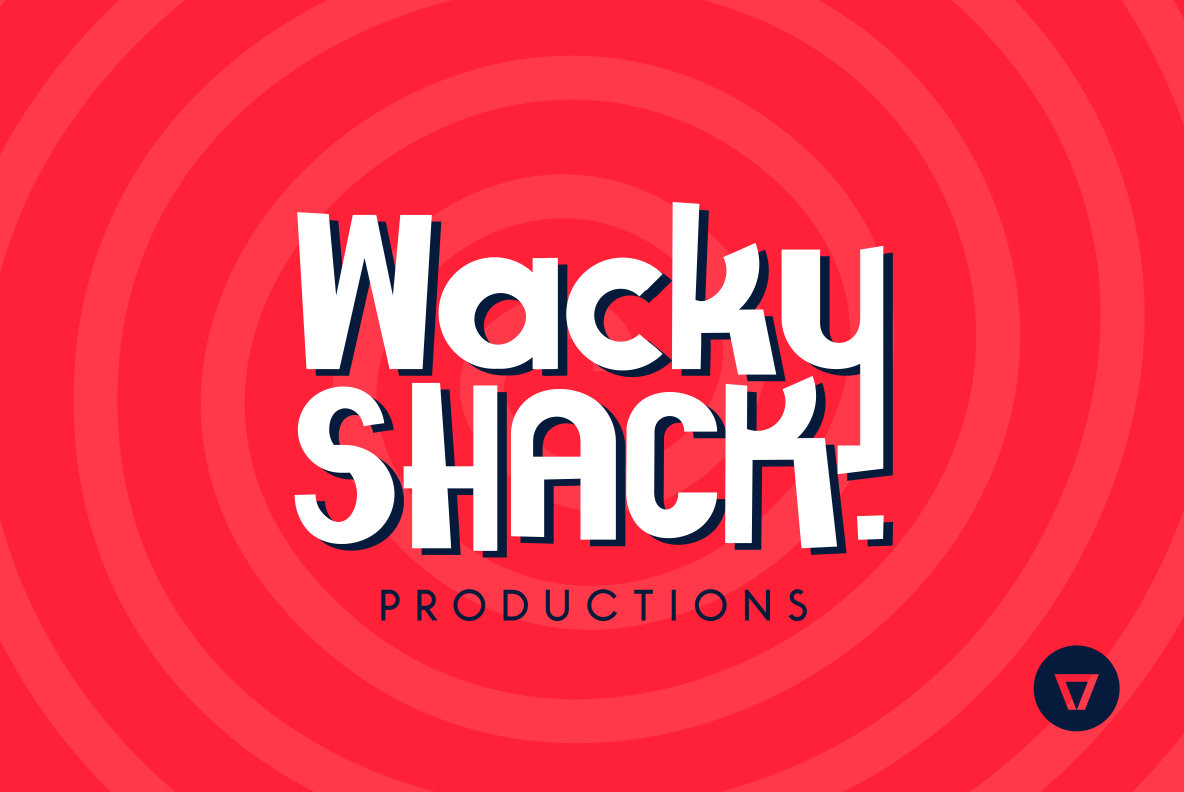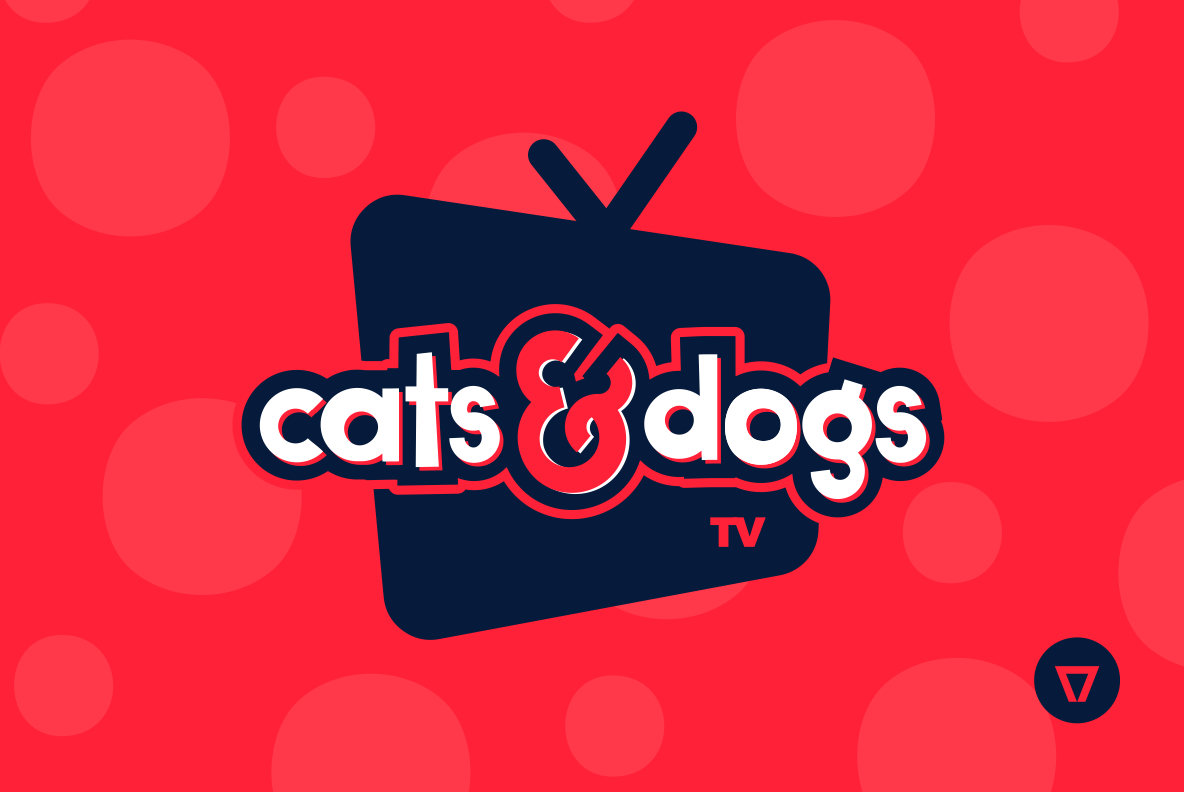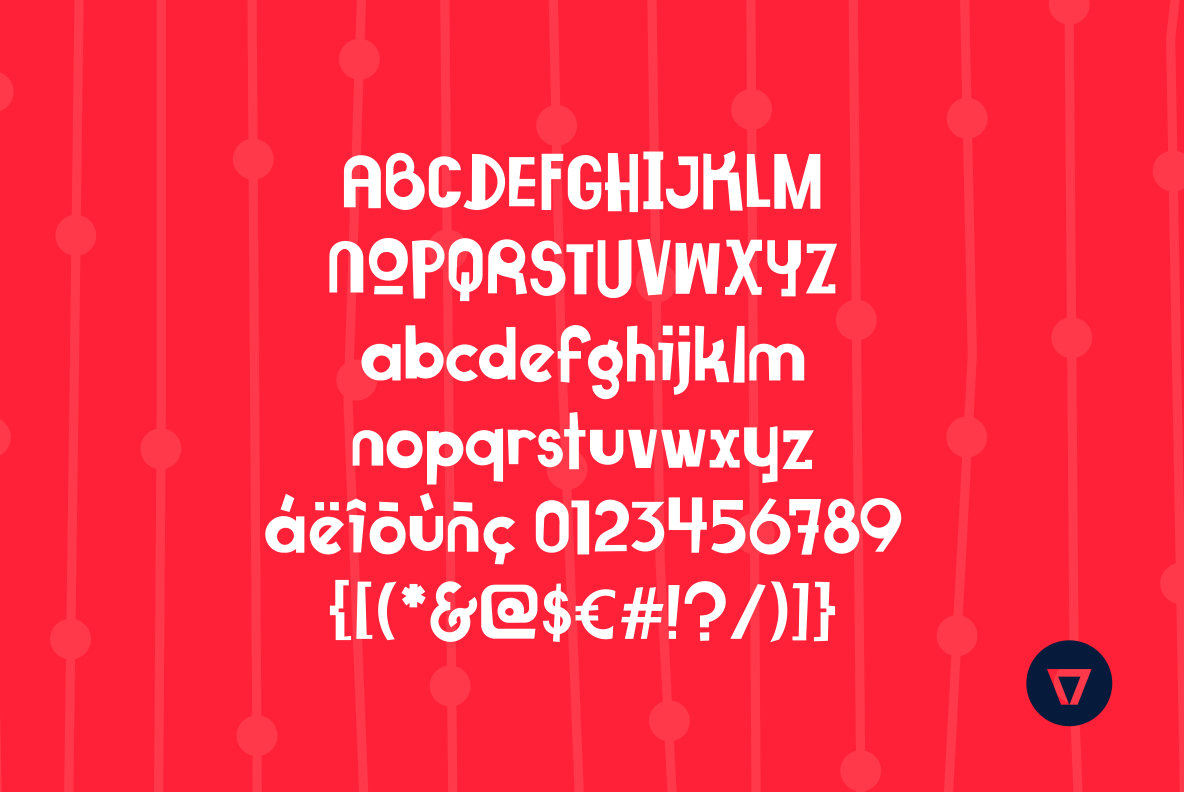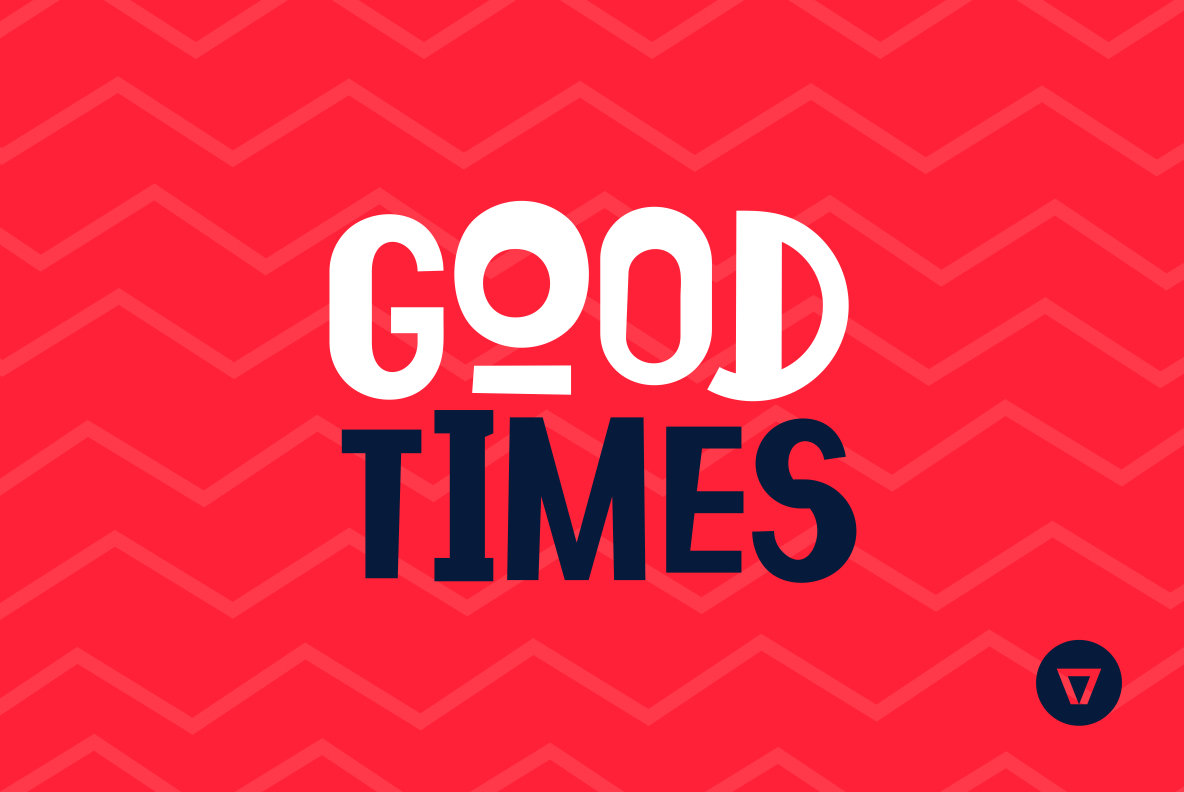
Superfruit Font
Superfruit Bold
Superfruit is a tasty and healthy display font, with lots of fun and attitude. Perfect to add text to your illustrations, posters, logos and more.